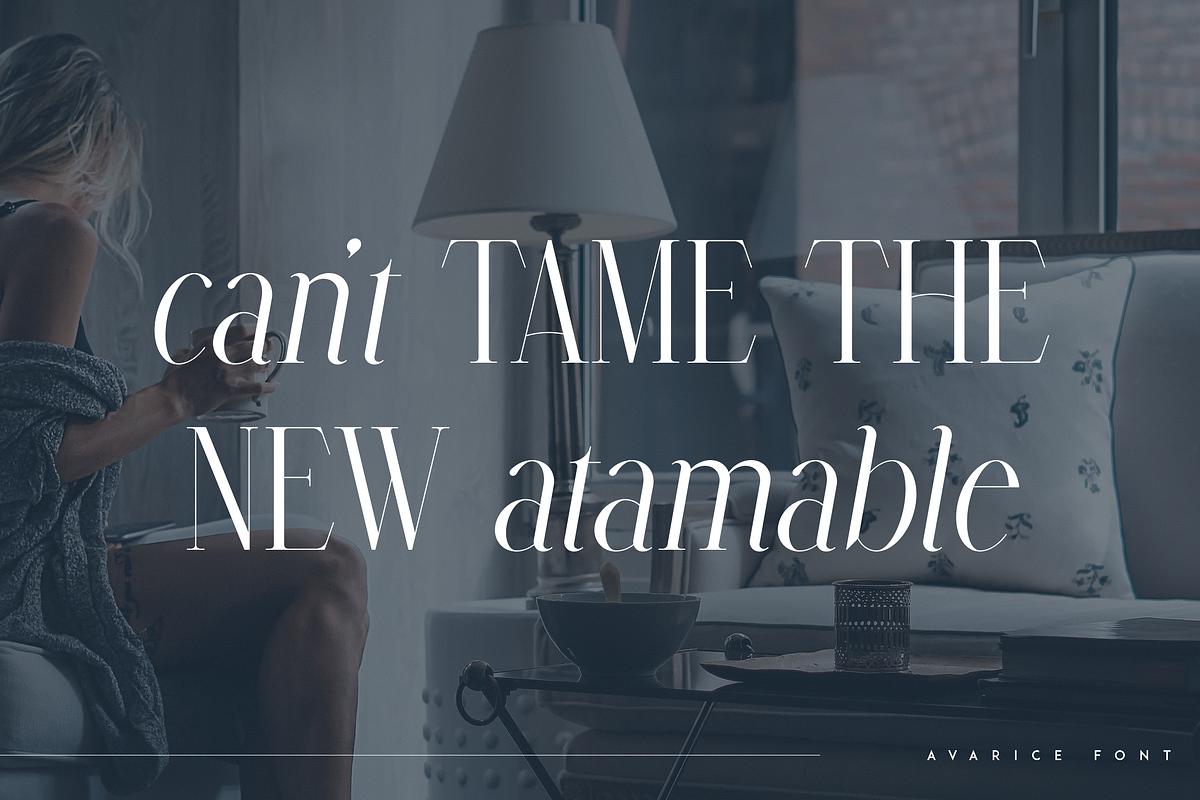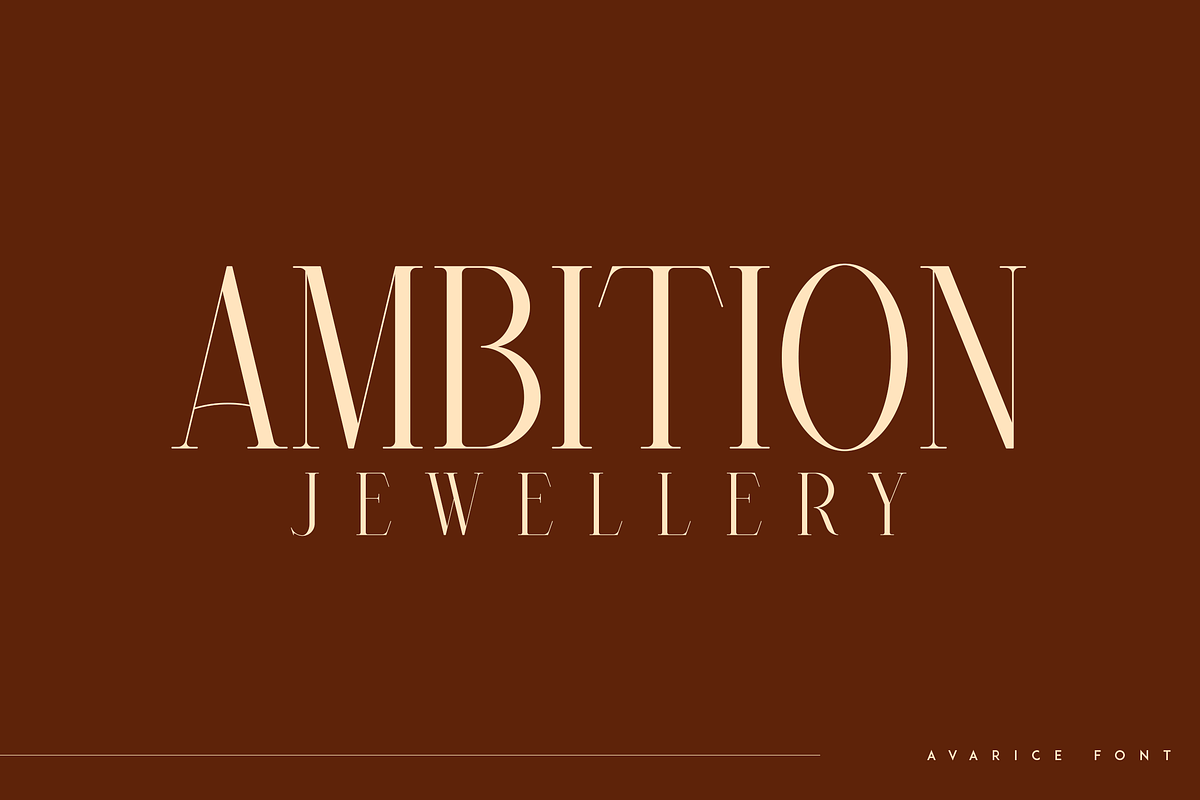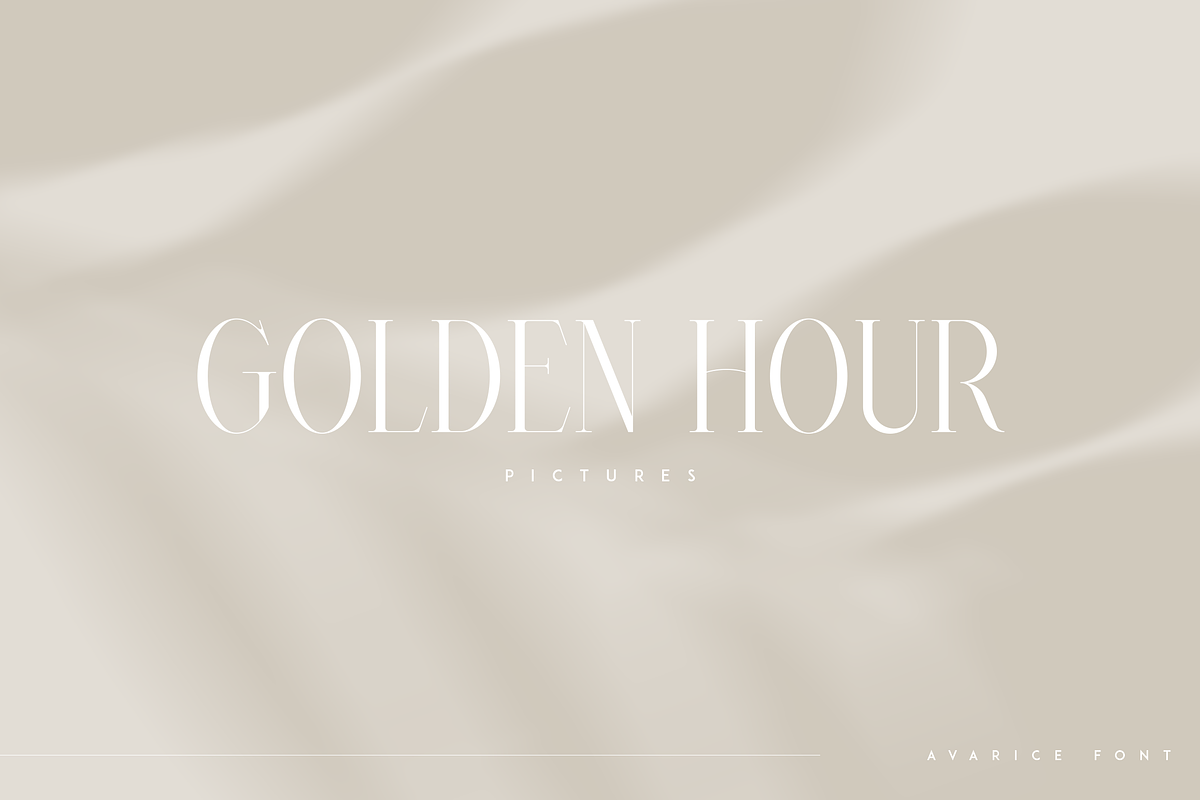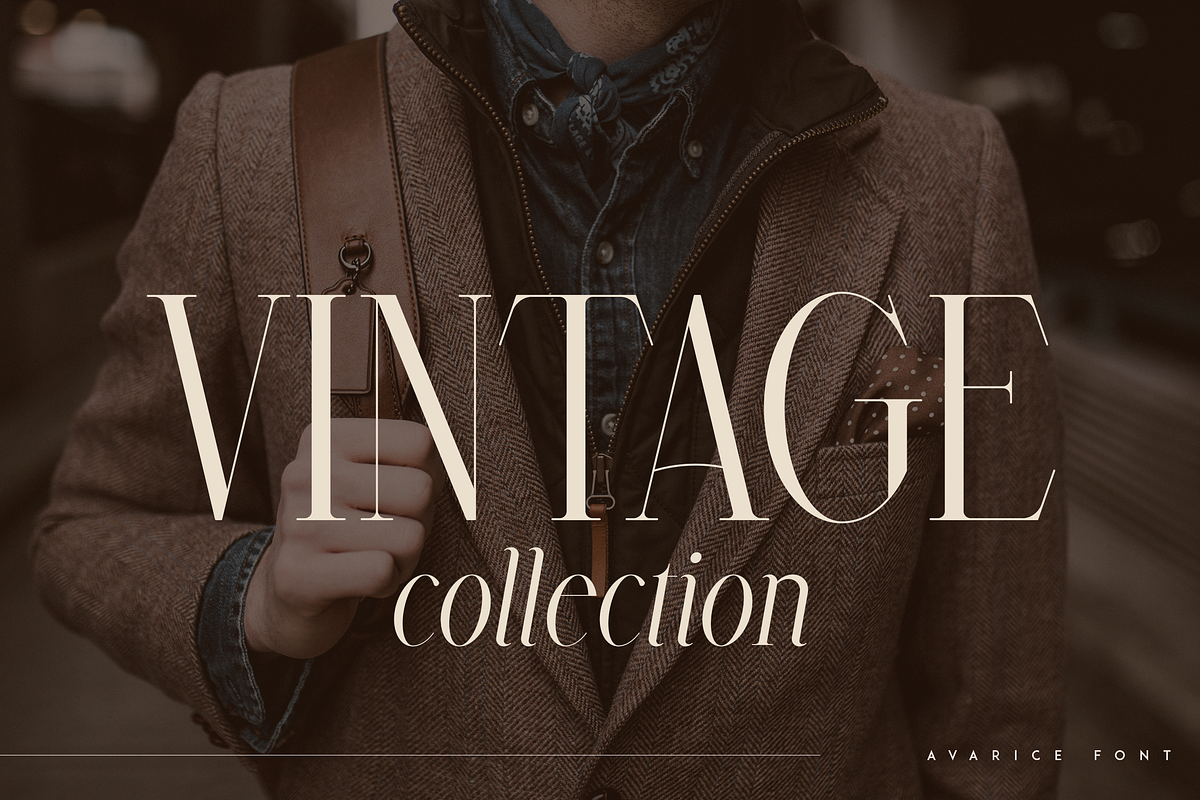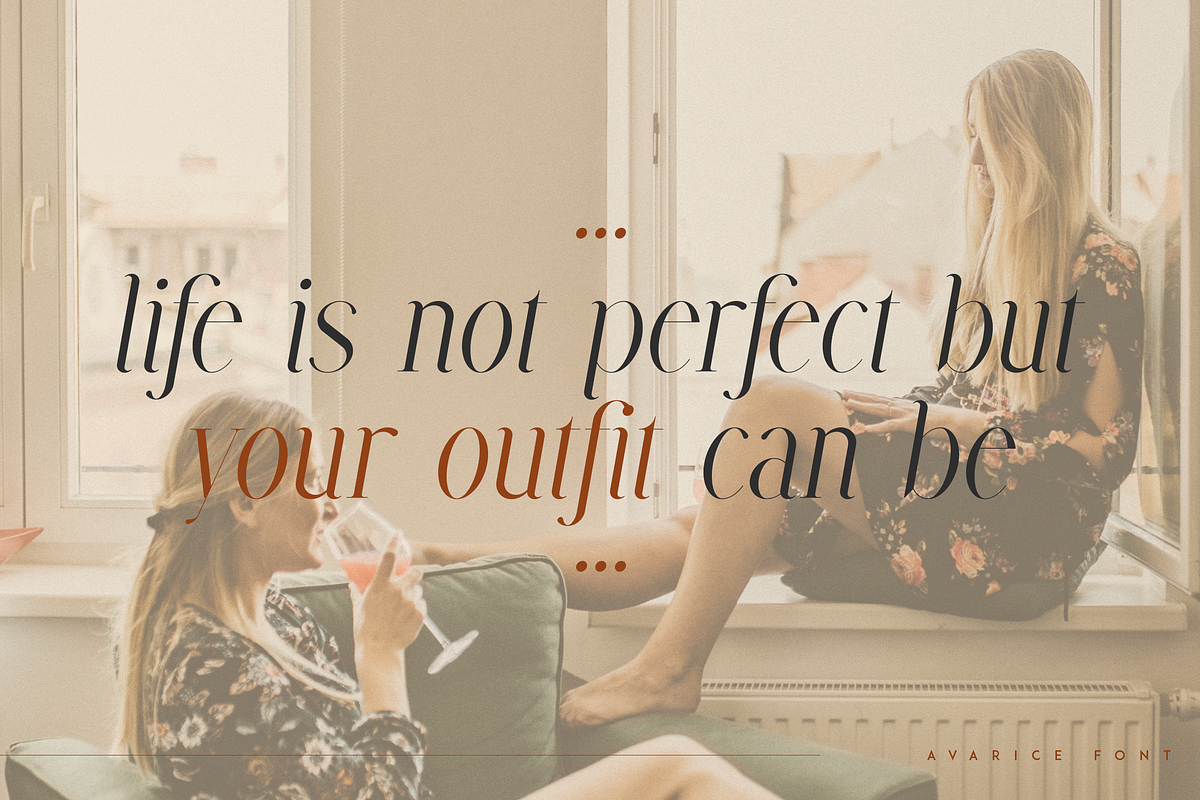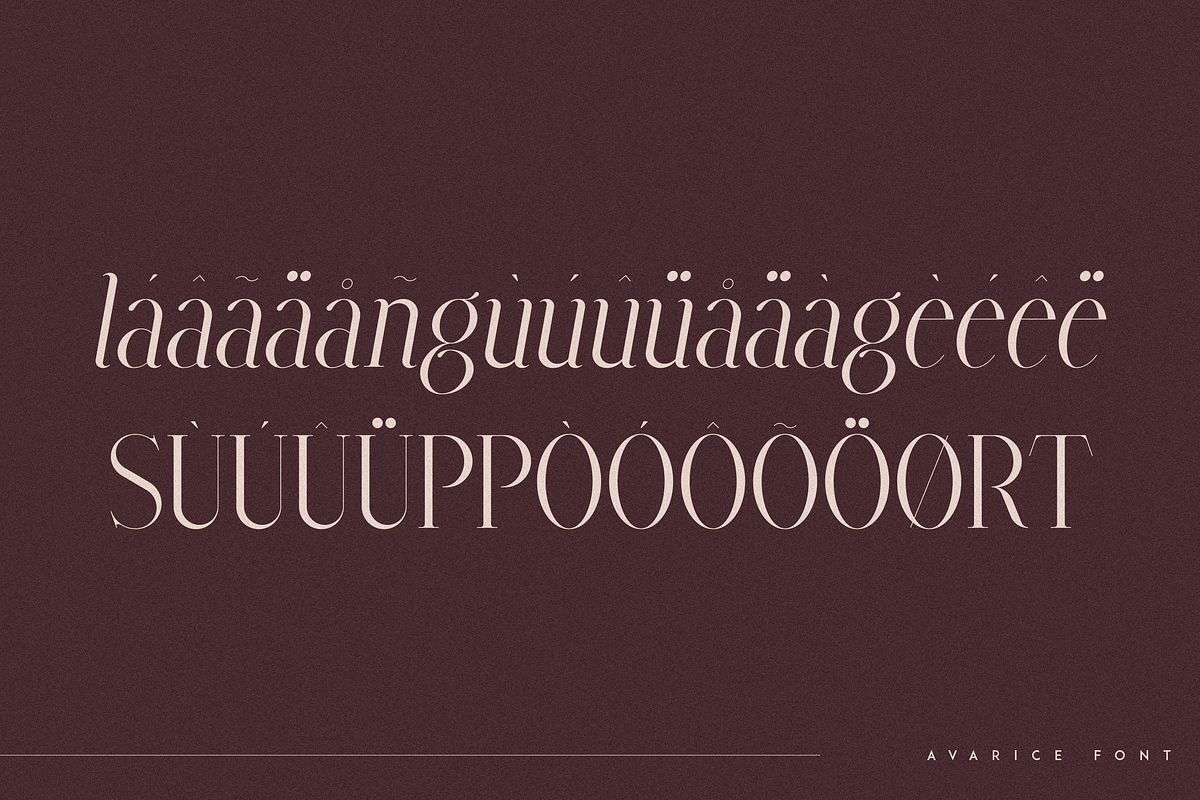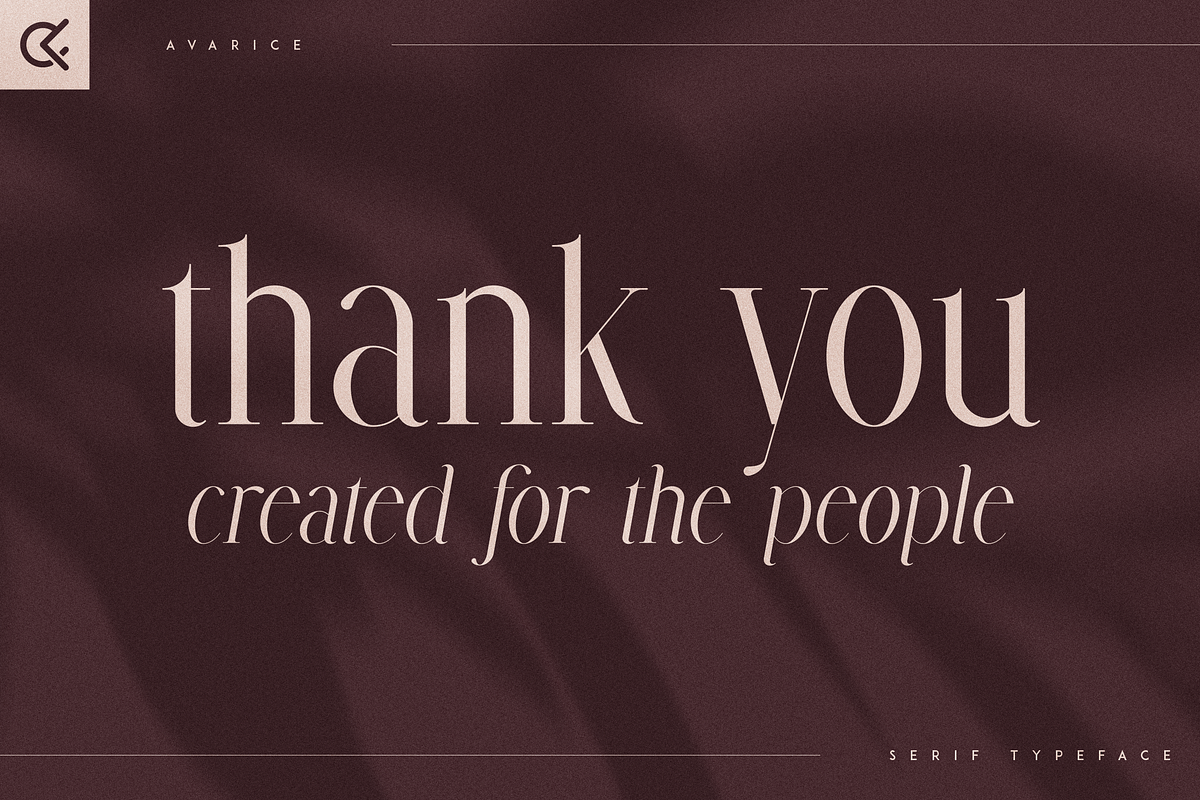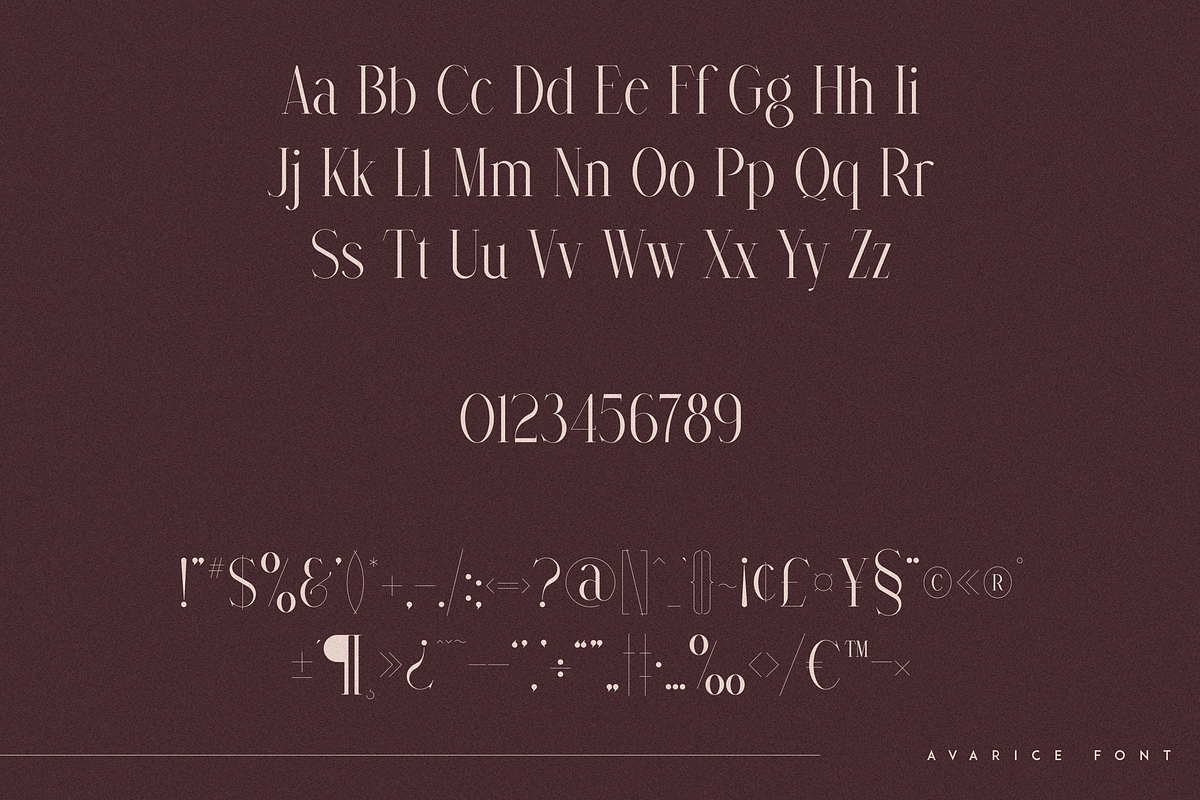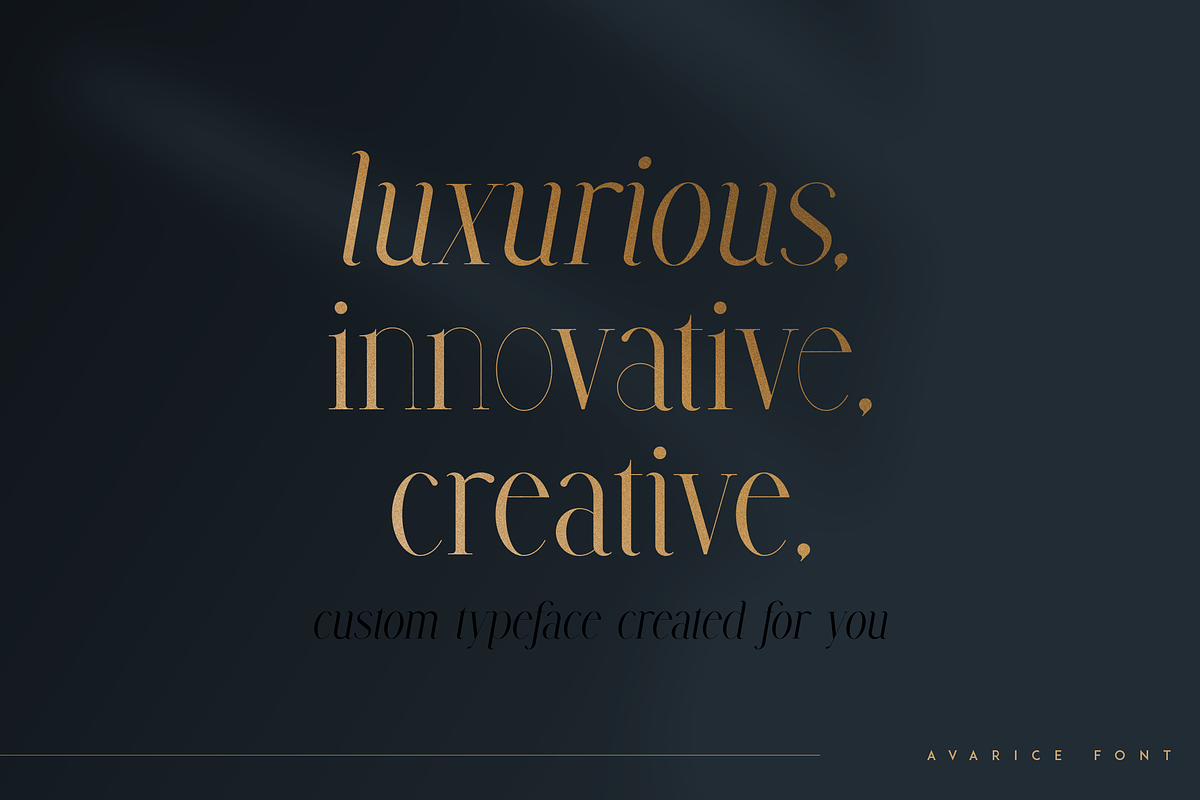
Avarice - serif typeface | 4 fonts
Introducing Avarice - serif typeface | 4 fonts
Avarice is long and elegant typeface loaded with 4 fonts and multilingual support. It's a very versatile font that works great in large and small sizes.
This font is perfect for branding projects, home-ware designs, product packaging, magazine headers - or simply as a stylish text overlay to any background image.
- Uppercase, lowercase, numeral, punctuation & Symbol
- 2 alternate styles
- italic